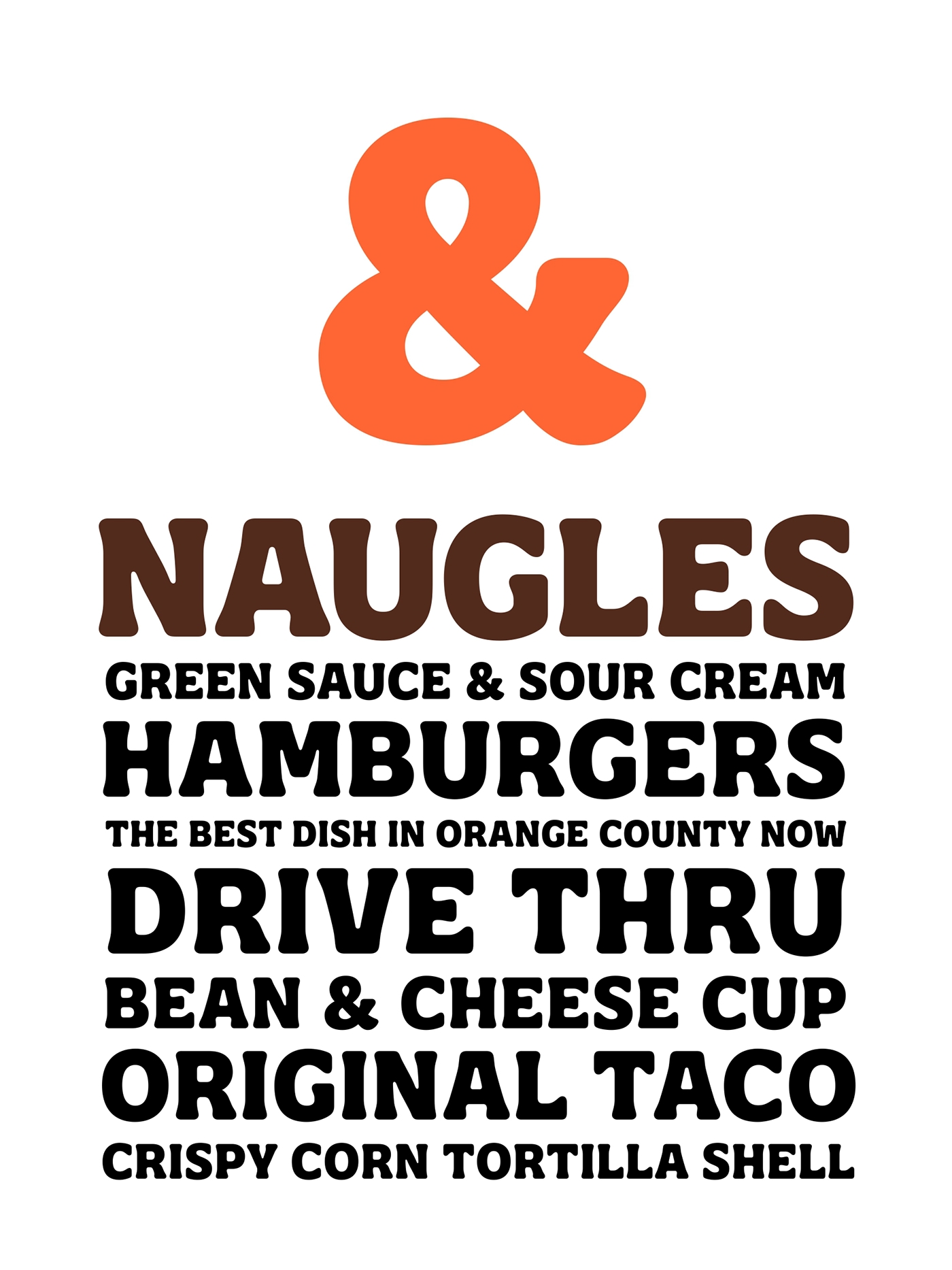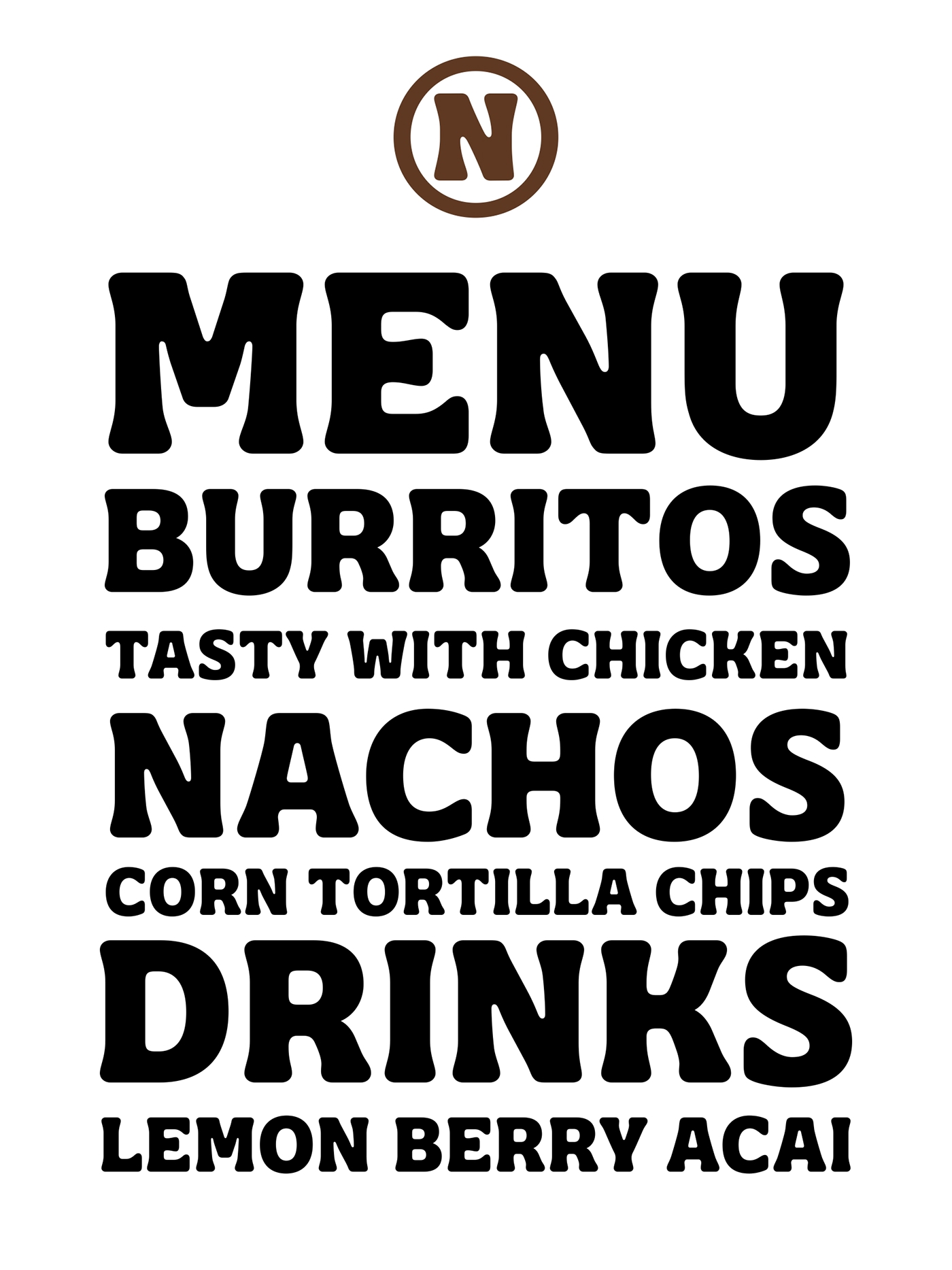
The NAUGLES brand is coming back to the life, so we were commissioned to make a font based on the original Naugles Logo. The challenge was hard because the letters had to be legible and regular but maintaining their general appearance according to the highly embedded image of the brand into the fans minds.